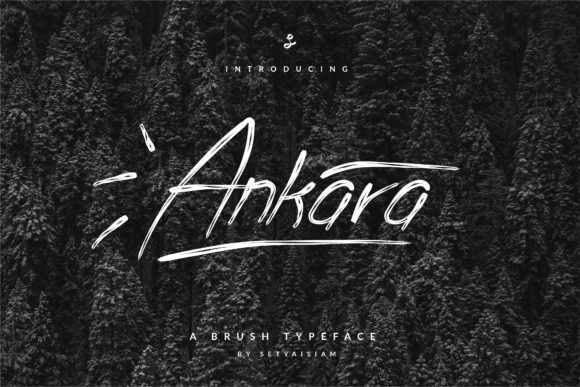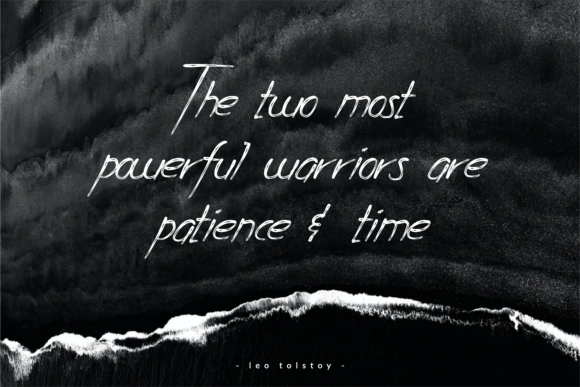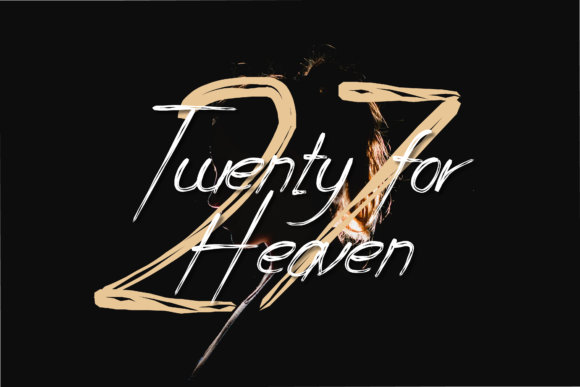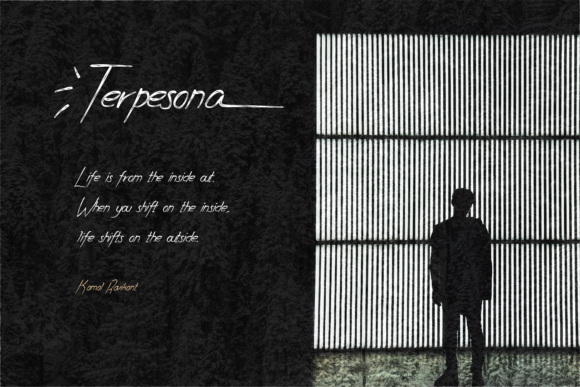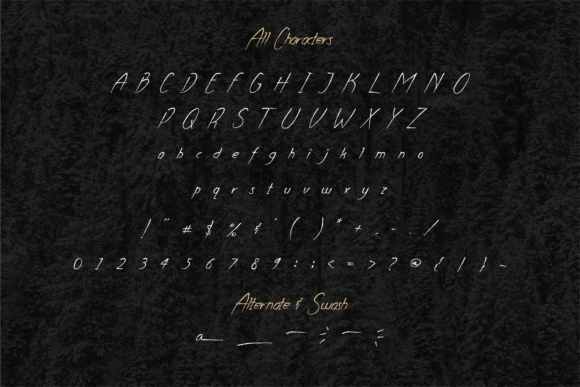
Ankara Font
About Ankara Font
Ankara is a cool and artistic brushed handwritten font that brings a unique and authentic touch to your designs. Inspired by chalkboard lettering, this font is perfect for creating eye-catching quotes, teaching materials, and various creative projects where you want to evoke a handcrafted and personal feel.
With its brushed style, Ankara exudes a sense of artistic flair and creativity. The natural and organic look of the letters resembles hand-drawn brush strokes, adding a touch of realism and human touch to your designs. This makes it an ideal choice for projects that require a more personal and approachable touch, as it creates a connection with your audience.
The versatility of Ankara allows it to be used in various design contexts. Its edgy and trendy appearance makes it suitable for modern and contemporary designs, while its chalkboard-inspired look gives it a touch of vintage and rustic charm. Whether you’re creating posters, social media graphics, educational materials, or even branding elements, Ankara can add a cool and artistic flair that sets your designs apart.
One of the key features of Ankara is its ability to mimic the texture and feel of chalkboard writing, which adds a level of authenticity to your designs. It’s as if the words have been carefully crafted by hand on a chalkboard, giving your audience the sense of a unique and handcrafted creation.
Despite its artistic and brushed style, Ankara remains legible and easy to read, ensuring that your message comes across clearly to your audience. This balance between creativity and functionality makes it a practical choice for a wide range of design applications.
In conclusion, Ankara is a cool and artistic brushed handwritten font that brings an authentic and personal feel to your designs. Its resemblance to chalkboard lettering adds a touch of nostalgia and creativity, making it a perfect choice for chalkboard quotes, teaching materials, and other projects where you want to create a unique and handcrafted look. Whether you’re designing for educational or creative purposes, Ankara will elevate your designs with its cool and trendy style.